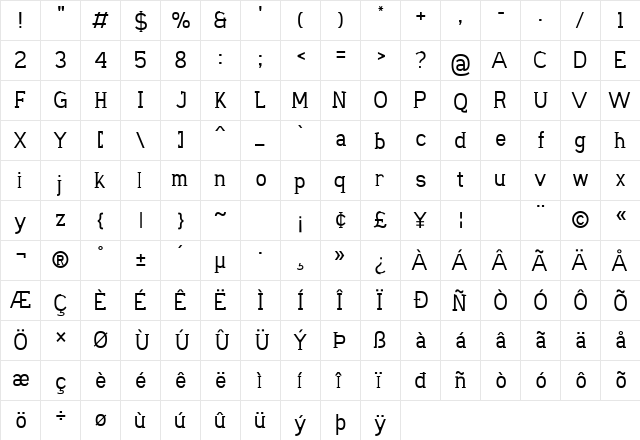
Carved Rock Regular
Design Context for Carved Rock Typeface
Carved Rock offers clean, dependable letterforms without strong stylistic allegiance, making it a practical choice for designers who need flexibility.
Pro Tip: Pair Carved Rock with a font of contrasting weight or personality to build a more expressive typographic hierarchy.